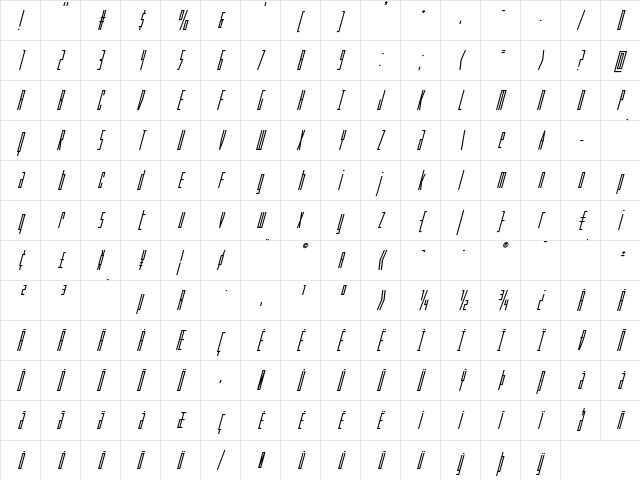
Phantacon Bold Super-Italic Bold Italic
Design Context for Phantacon Bold Super-Italic Typeface
Phantacon Bold Super-Italic is a composed and adaptable typeface that performs quietly and consistently across a wide range of design contexts. The dynamic lean of this cut emphasises speed and emphasis in any layout. Its bold stroke weight gives it real presence on the page.
Pro Tip: Use Phantacon Bold Super-Italic for emphasis, pull quotes, and subheadings where its slanted energy can add rhythm to the layout.